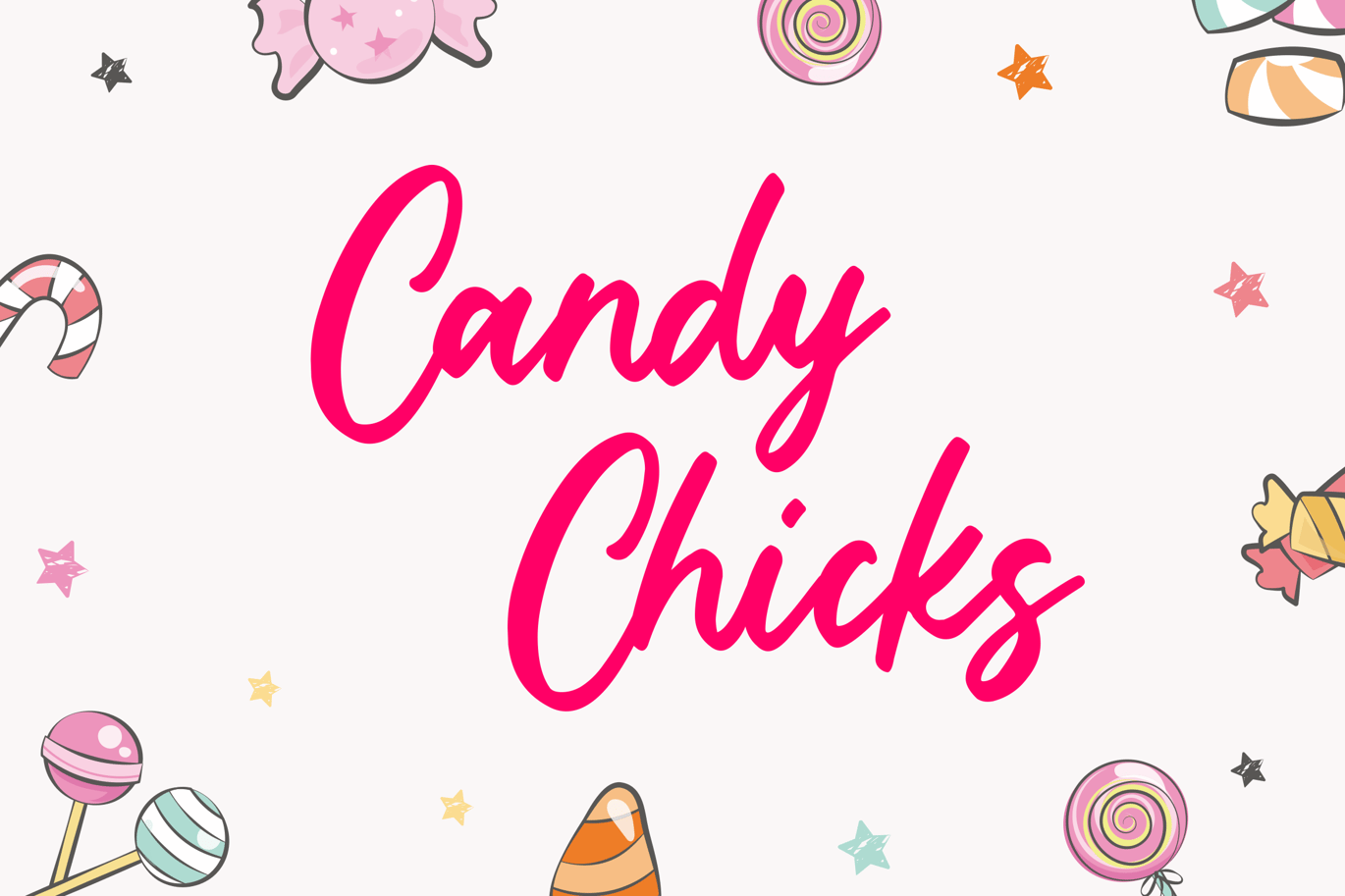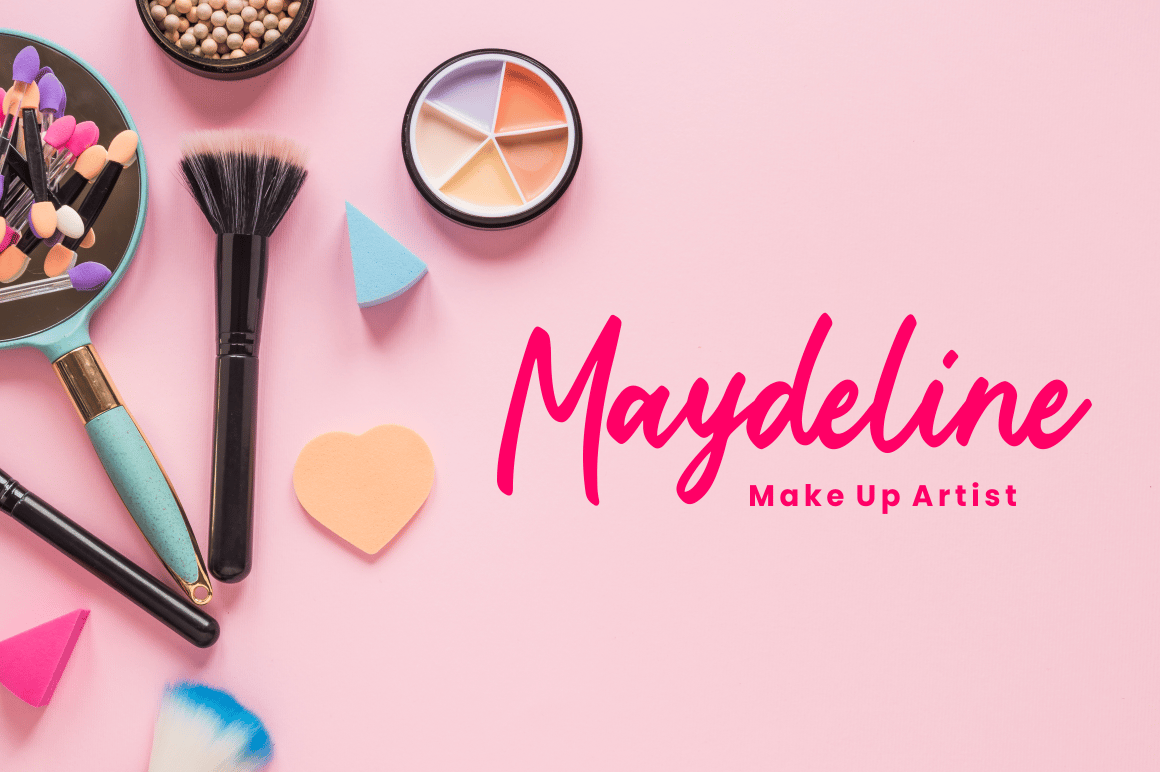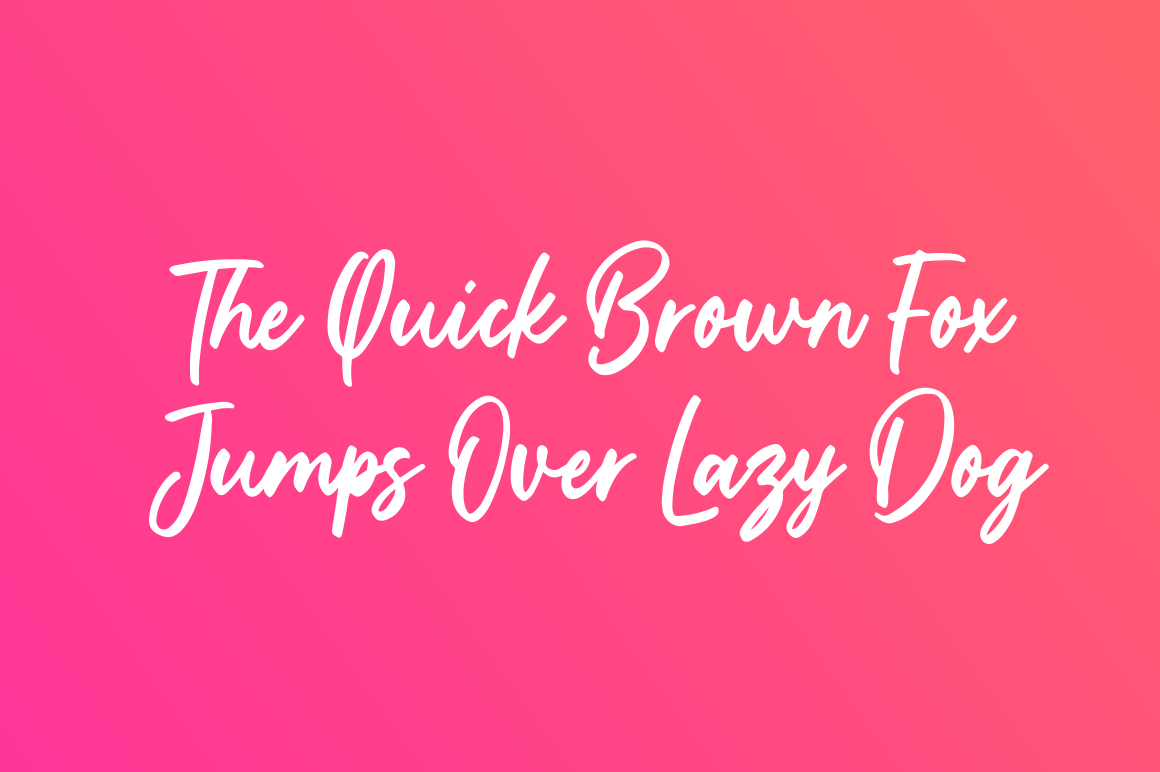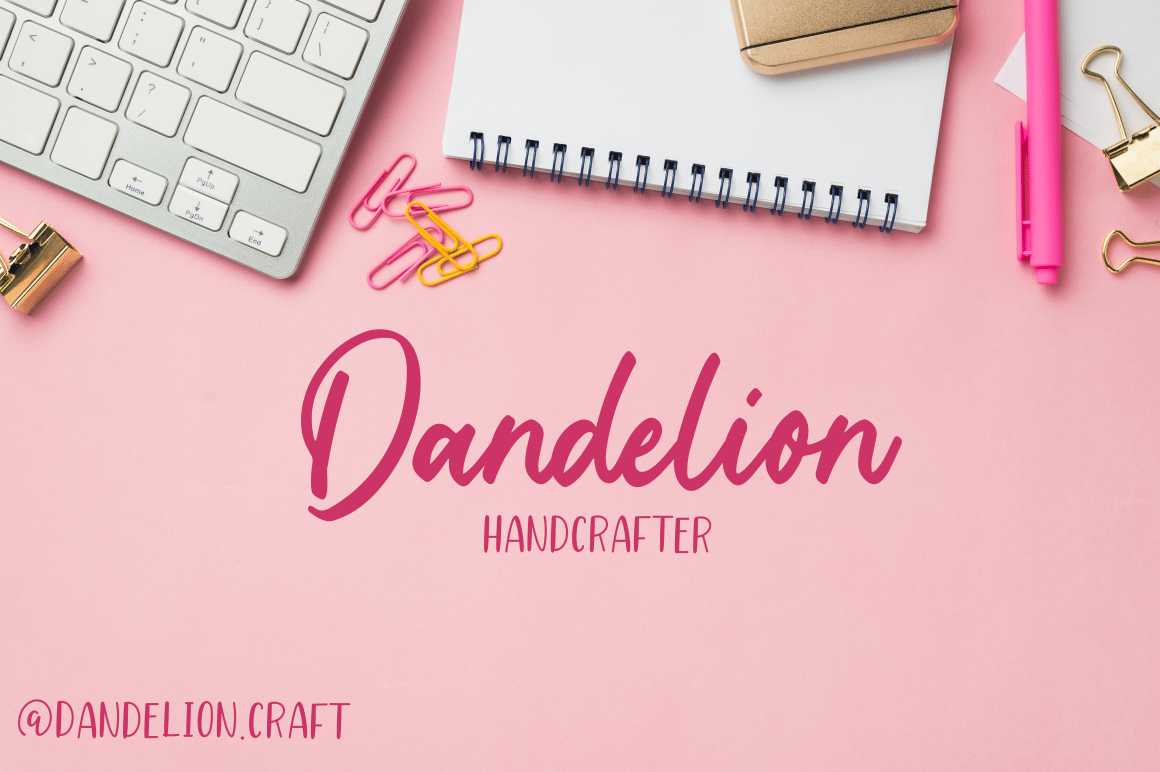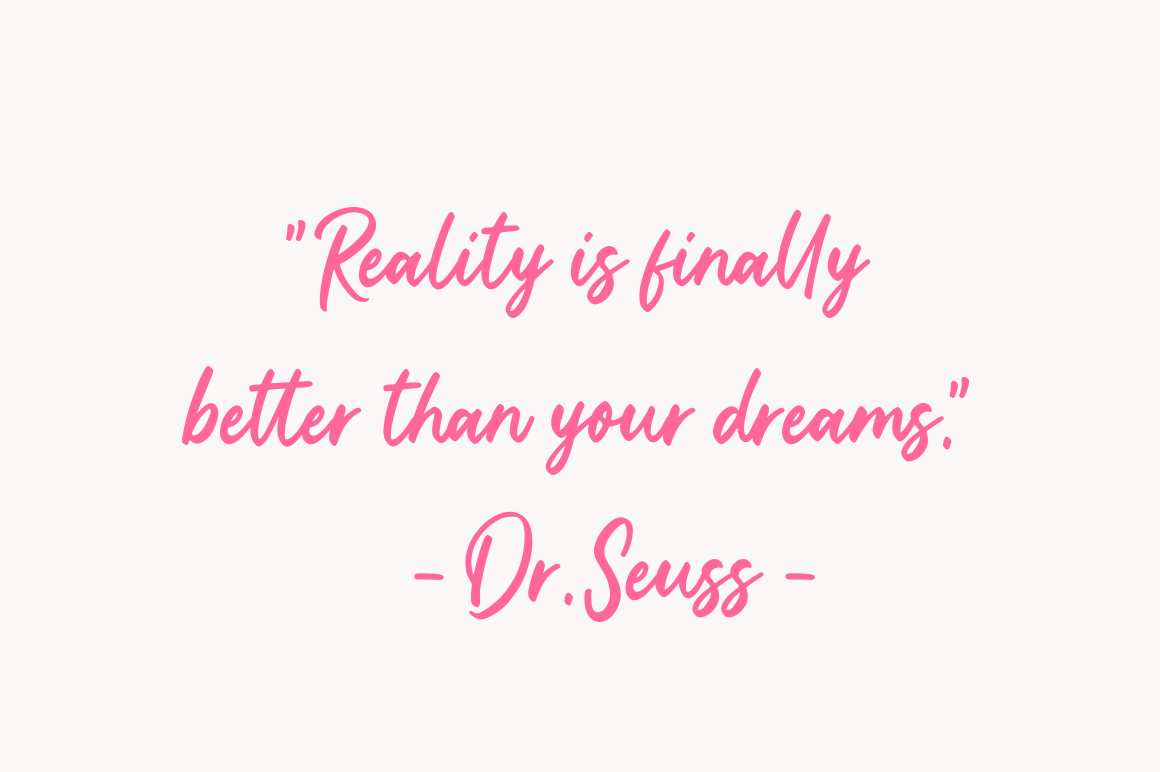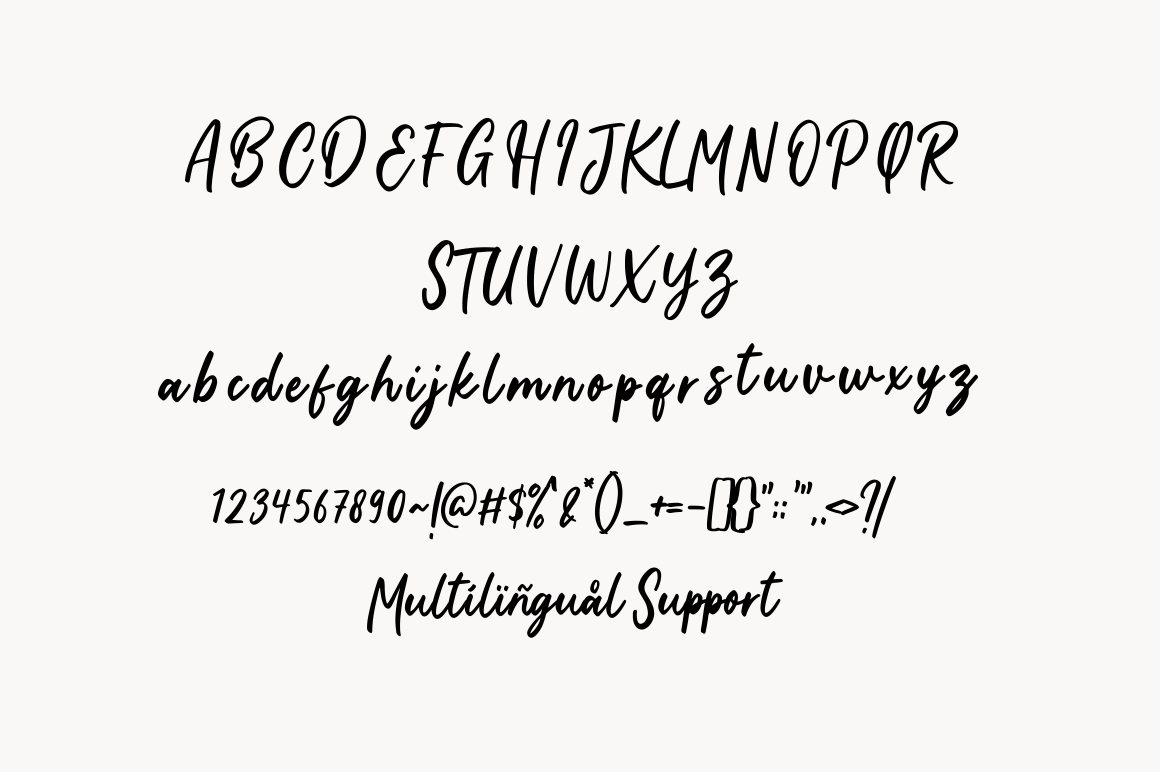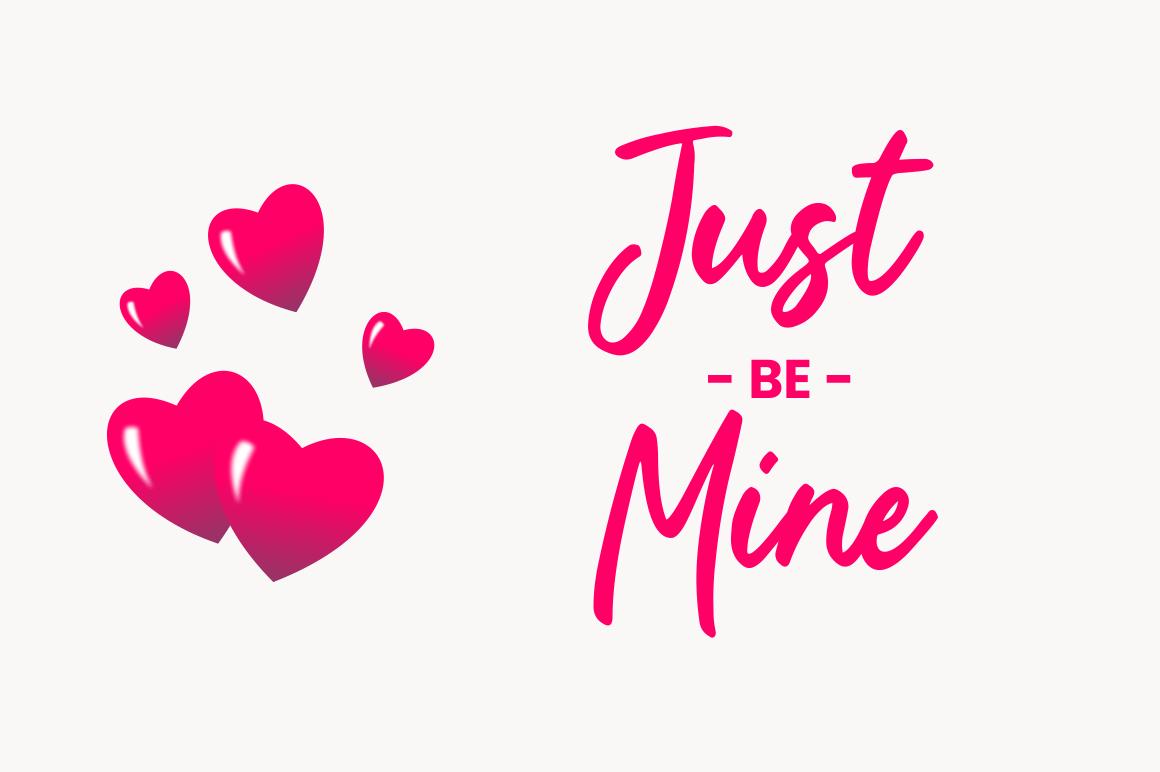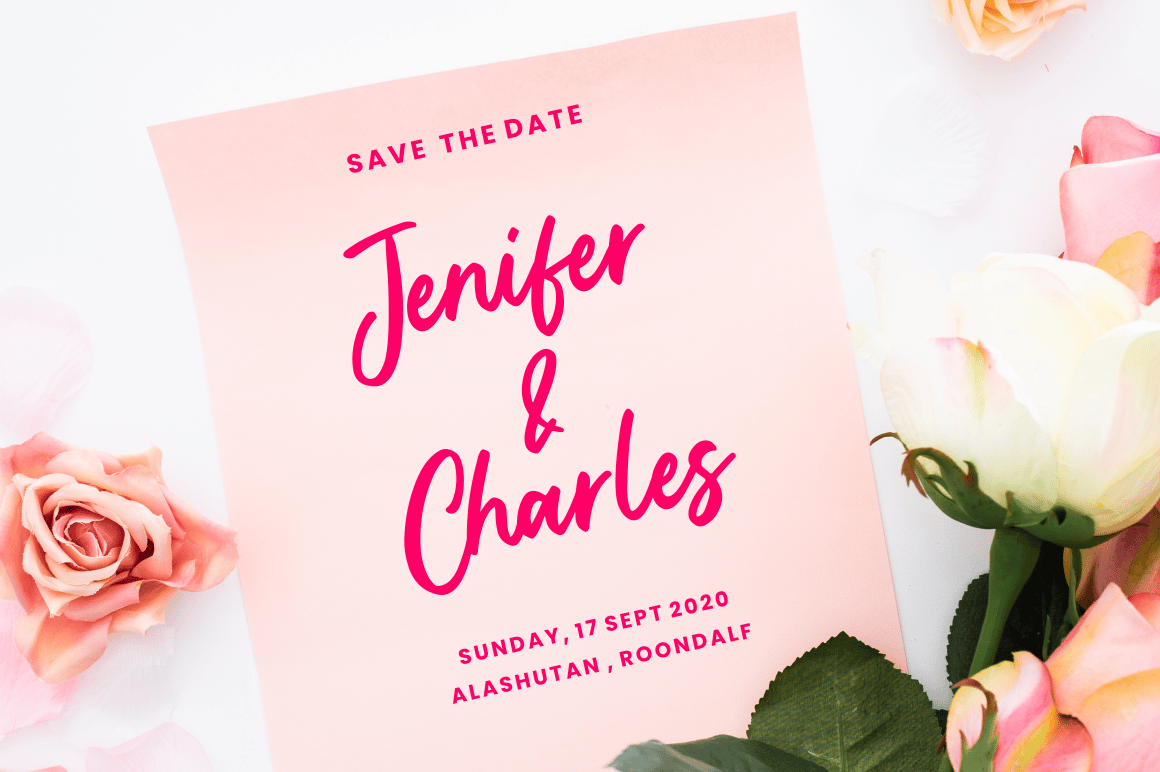
Candy Chicks – Modern Script Font
Candy Chicks is a lovely handwritten font, this font Is perfect for logo, invitation, stationery, wedding designs, social media posts, advertisements, product packaging, product designs, label, photography, watermark, special events or anything.
Candy Chicks comes with full set of uppercase and lowercase letters, multilingual symbols, numerals, punctuation.